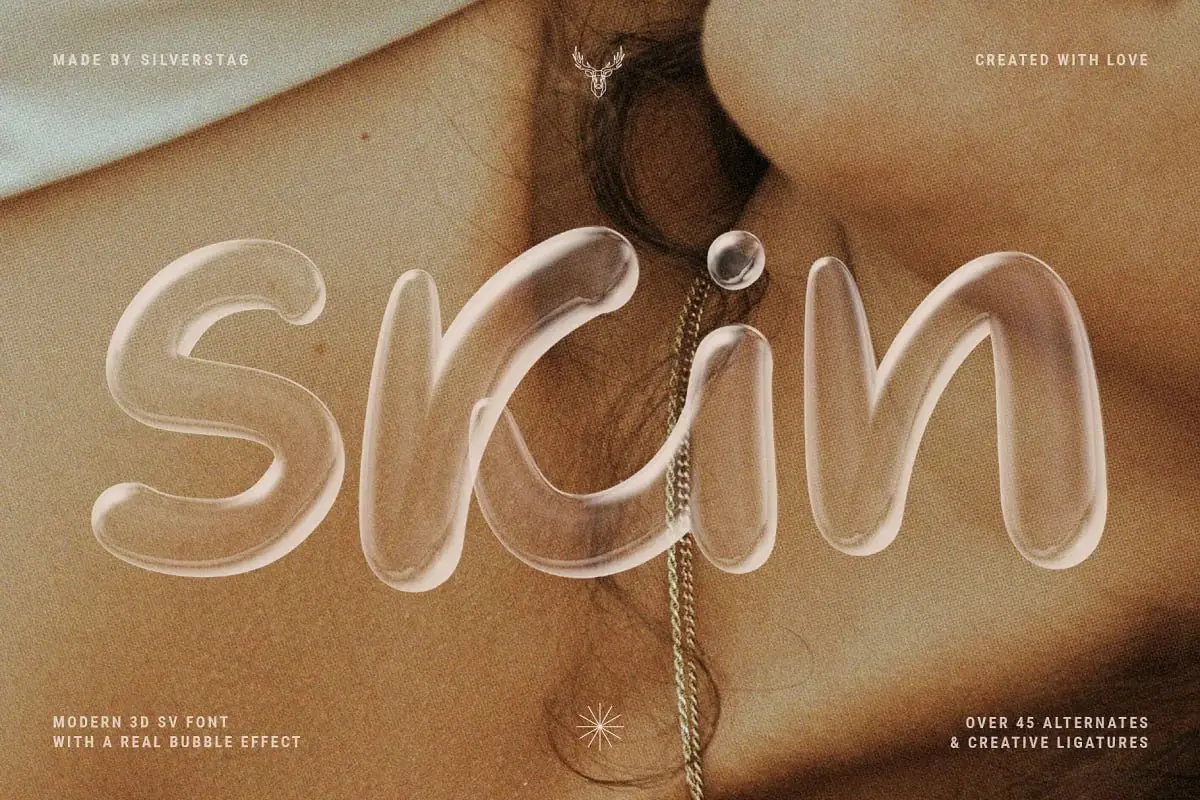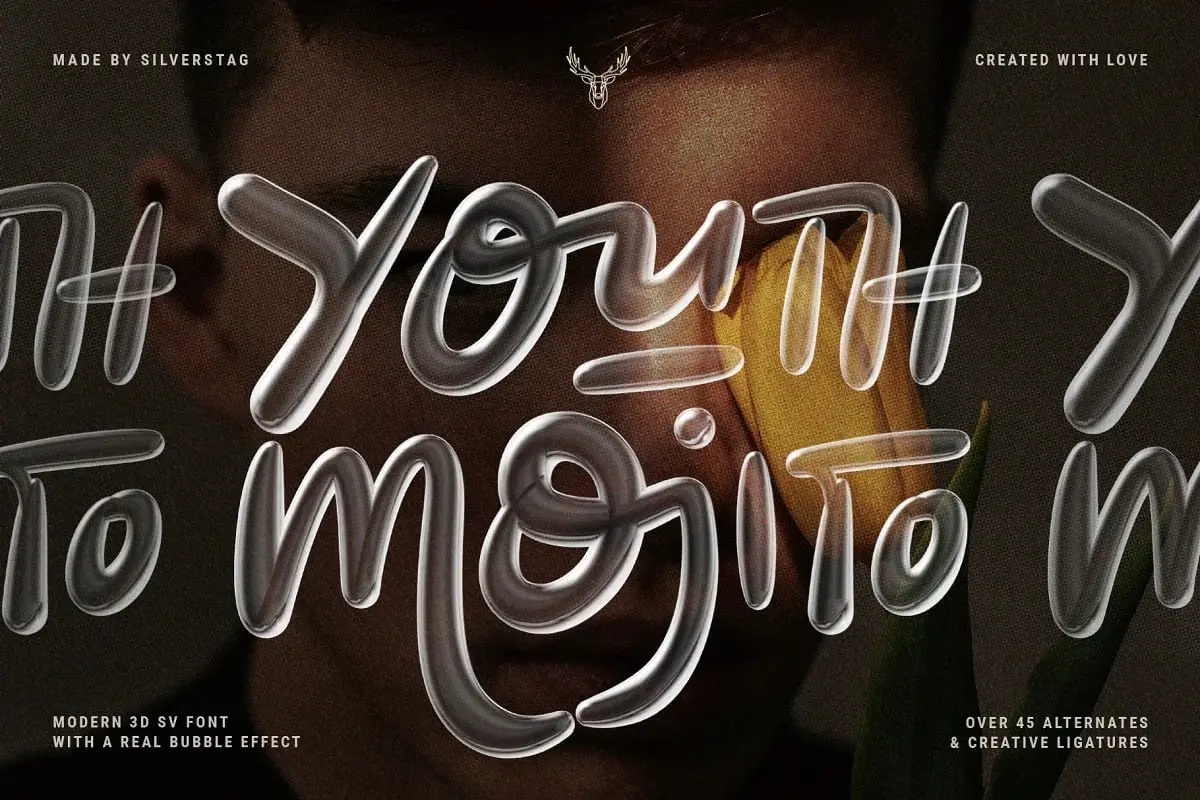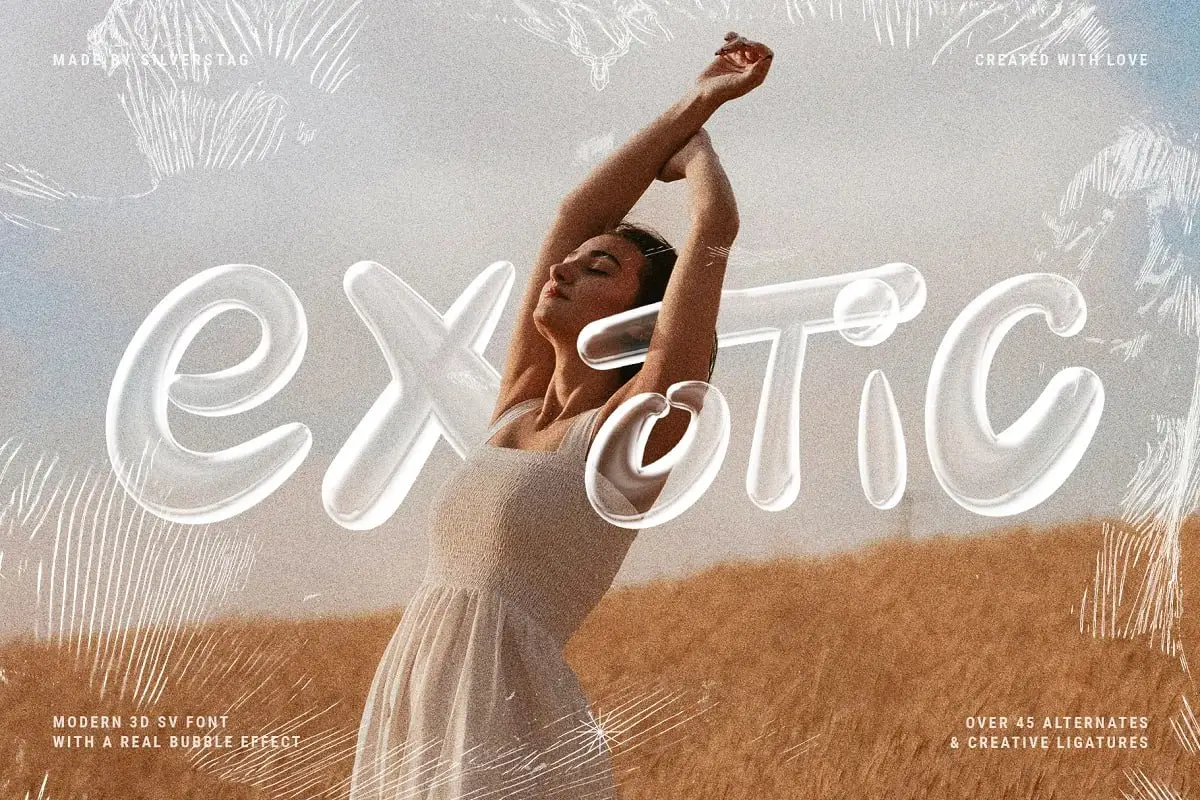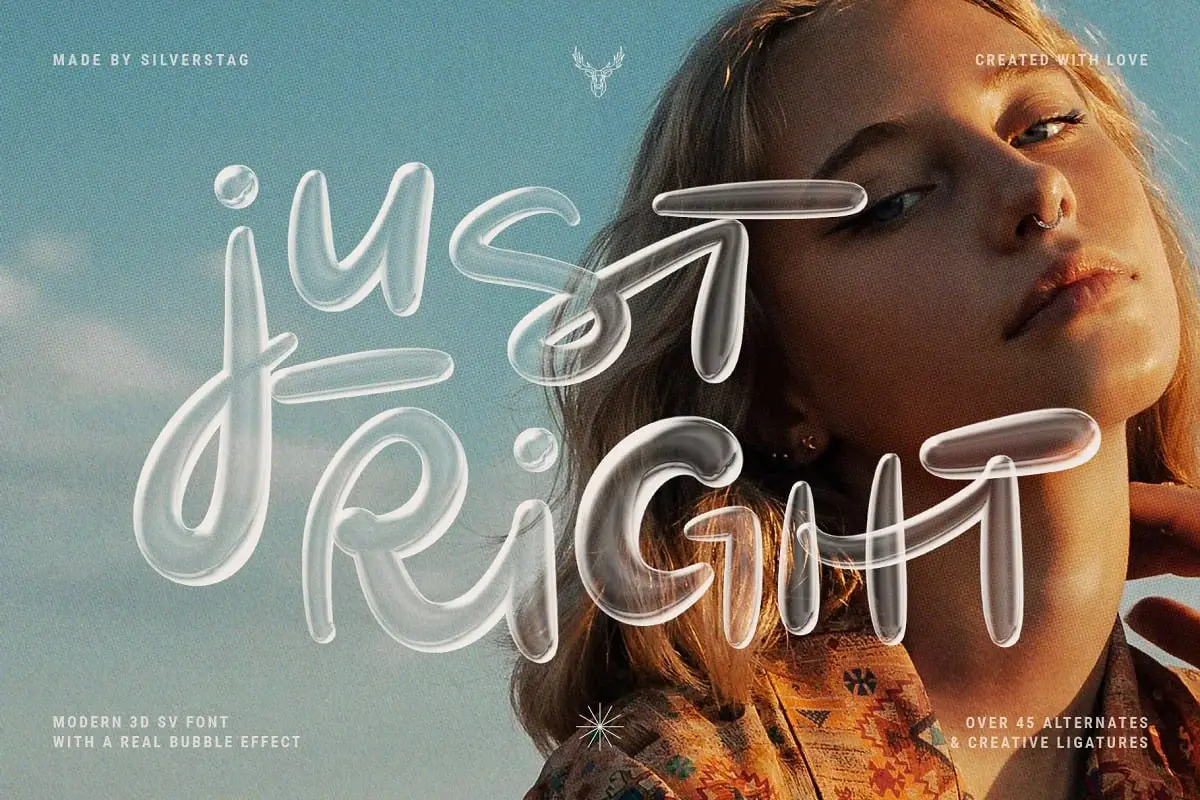
Introducing the Youth Mojito-A 3D Bubbly Svg Font by Silverstag, a playful and vibrant typeface that brings a fun, bubbly aesthetic to your projects. This font is perfect for crafting eye-catching designs, whether for branding, logos, or digital art.
- 3D bubbly style for a unique visual appeal
- Easy to customize for various design needs
- Style: 3D bubbly
Utilize the Youth Mojito-A font for vibrant branding, playful logos, and engaging web graphics. Its unique style makes it suitable for children’s products, party invitations, and any project that requires a touch of fun.